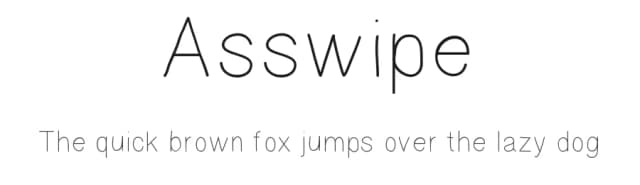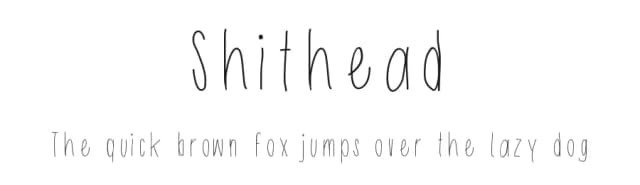
About Tickle Shits Font
Tickle Shits is a script & handwritten font designed by Nikki Rodriguez. It includes 103 glyphs, a medium weight, TTF (TrueType) format, and 107 languages. Tickle Shits is free to download; check the license details on this page before commercial use. Script & handwritten fonts like Tickle Shits work best for wedding invitations, greeting cards, signatures, and elegant branding.
Tickle Shits Font is a script font that shines as a display or heading face. Pair it with a clean sans-serif or serif font for body text β the contrast creates a clear hierarchy while the two styles stay balanced and easy to read.
Tickle Shits Font
Tickle Shits Font is a script handwritten typeface by Nikki Rodriguez, ideal for logos, invitations, branding, and creative projects.